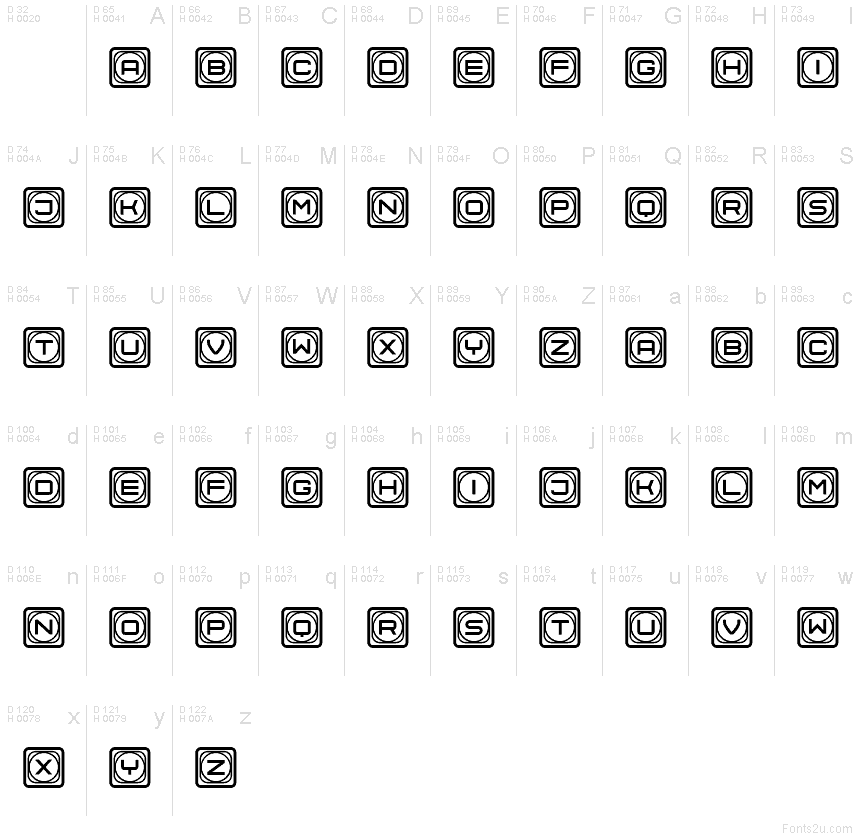
Before Extravagant Regular
Before Extravagant font by Vladimir Nikolic is a free decorative display typeface that turns every letter into a bold, framed icon. Each character sits inside a rounded square with thick black contour lines that overlap and echo, like retro arcade buttons or glowing panels on a sci-fi dashboard. The result is loud, structured, and instantly readable even at a distance, giving you text that feels engineered rather than simply written.
Using Before Extravagant, you can punch up posters, game titles, tech event branding, EDM or club flyers, retro-futuristic logos, packaging, and bold social media graphics. This free font shines when used large, letting the stacked outlines and compact spacing create a strong grid-like rhythm. Pair it with a clean geometric sans from the Before family or a simple system sans in smaller text to keep the attention squarely on its striking letter tiles.